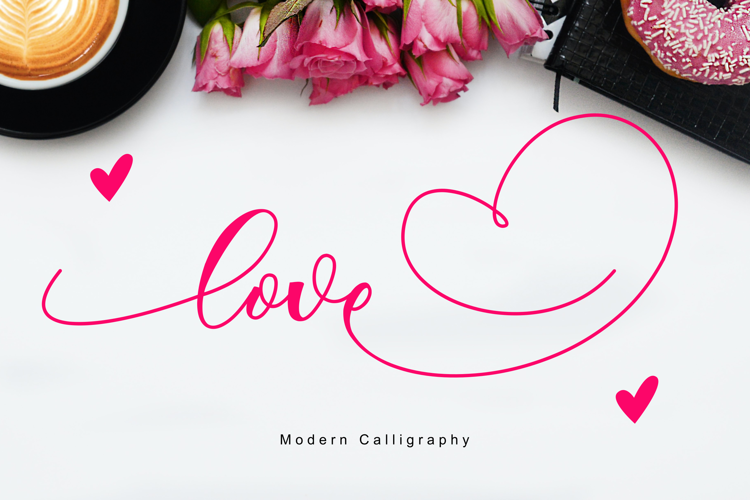
Love
Love is a romantic and sweet calligraphy typeface with characters that dance along the baseline. It will add a luxury spark to any design project that you wish to create! This font is PUA encoded which means you can access all of the amazing glyphs and ligatures with ease!